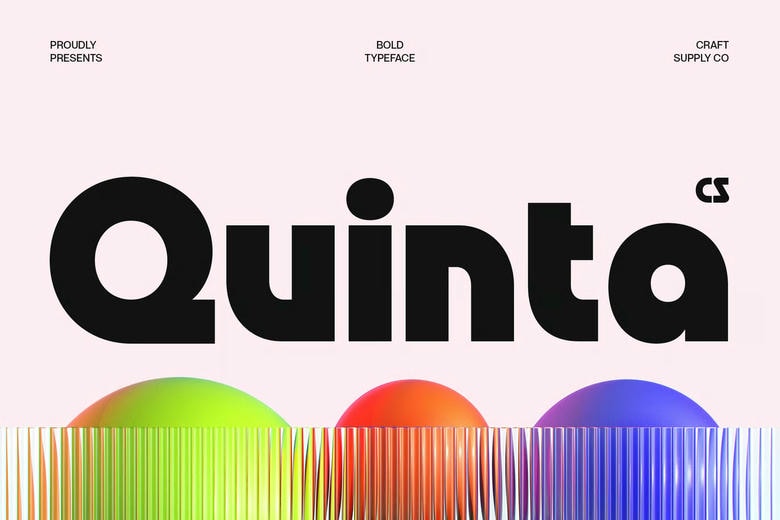
Quinta Font
CS Quinta is a modern, bold Sans Serif Font. Its letterforms are powerful and legible, and its geometric and futuristic influences provide its cool and dynamic design. Funky and Unique Character CS Quinta builds on its boldness and modern base with an expressive funky influence that brings personality and action to every character.
This is a fun minor detail that makes the font come to life and be memorable in a design that is in search of something new and effective. Ideal Creative and Energetic Projects CS Quinta is ideal when the project requires modernity, energy, and captivating sight. It has mastered posters, logos, branding, and brand name, working with the most banal layouts and transforms them to designs capturing attention and causing a significant impact.
Good Boldness and Readability CS Quinta is bold and visually appealing, yet it remains highly readable with clean proportions that make it useful across a wide range of creative uses. The techno-motivated geometrical structure makes it possible to create high impact without the loss of clarity or style.
Quinta Sans Serif Font